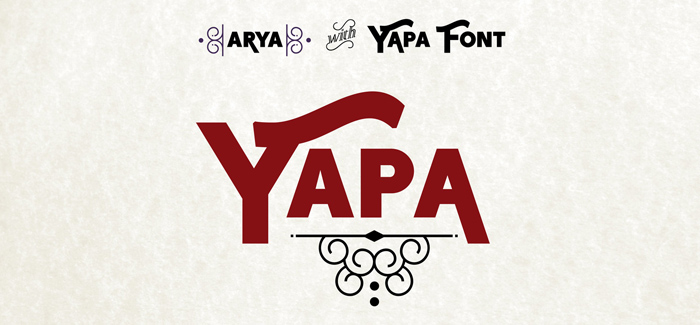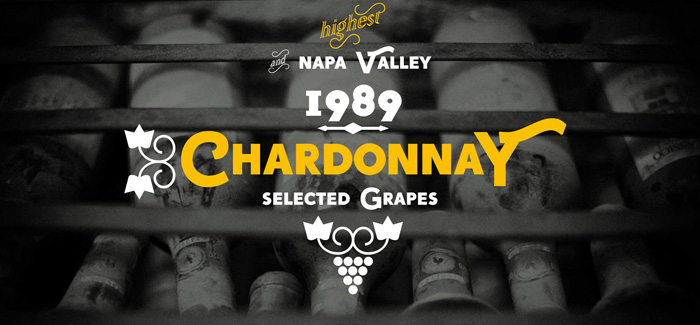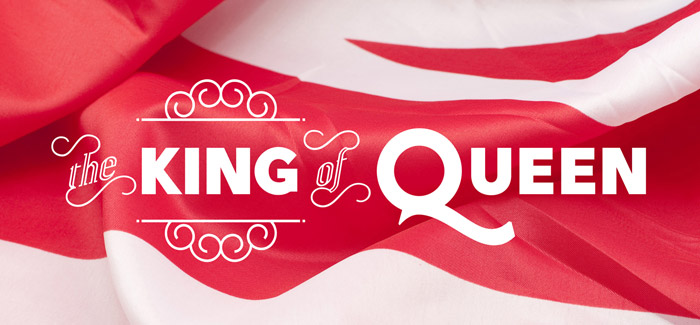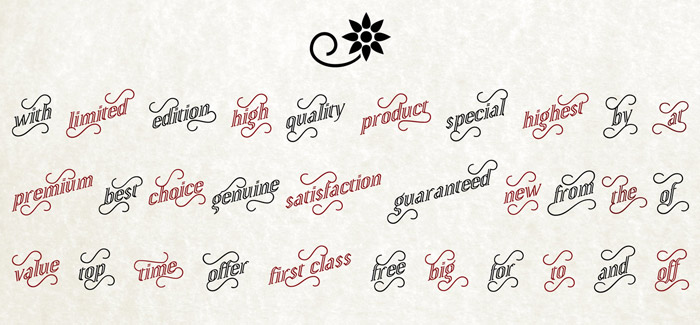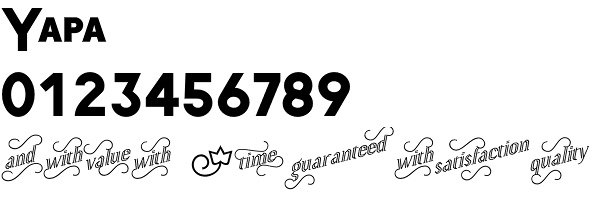
Yapa font
Yapa font is a beautiful display typeface by TipoType. Based on Arya and Prevya typefaces, It is a real workhorse if you want to make outstanding branding of your cigar store, create a beautiful wine label with bespoke vintage look, or use it for impressive menu design – Yapa does it all for you. Developed with a large set of alternates, swashes and ligatures, Yapa’s strong presence and flexibility is significantly improved by a single font for catchwords and ornaments that flavors your typography with more attraction and authenticity – all you need is an opentype aware application for its proper use.